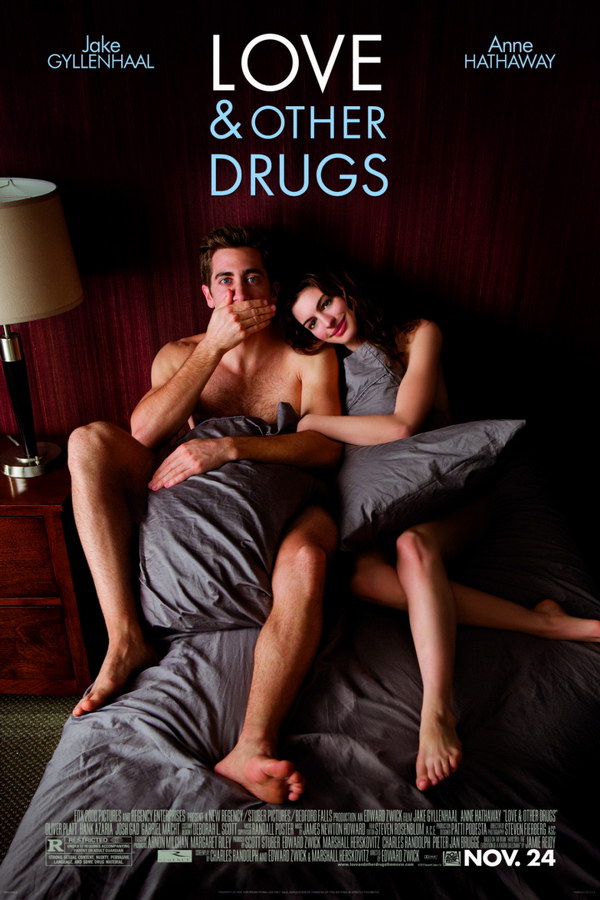
Love & Other Drugs Font
ComedyLove & Other Drugs is a romantic-comedy film that tells the story of a charming pharmaceutical salesman (Jake Gyllenhaal) who falls for a free-spirited woman (Anne Hathaway) with early-onset Parkinson's disease. The film explores themes of love, sex, and the challenges of living with a chronic illness.
The poster's movie title uses the Futura Book font, created by Paul Renner back in 1932, which is a commercially available font. You may find additional information about the font here.